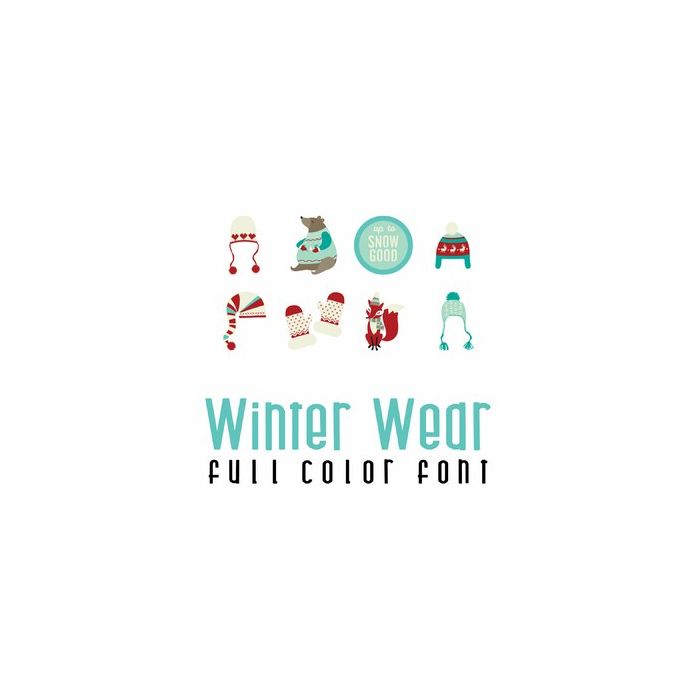
This fun full-color doodlebat font features 26 adorable Winter clothing items and animals perfect for cards, crafts, gifts, scrapbook pages, planner stickers, and more!